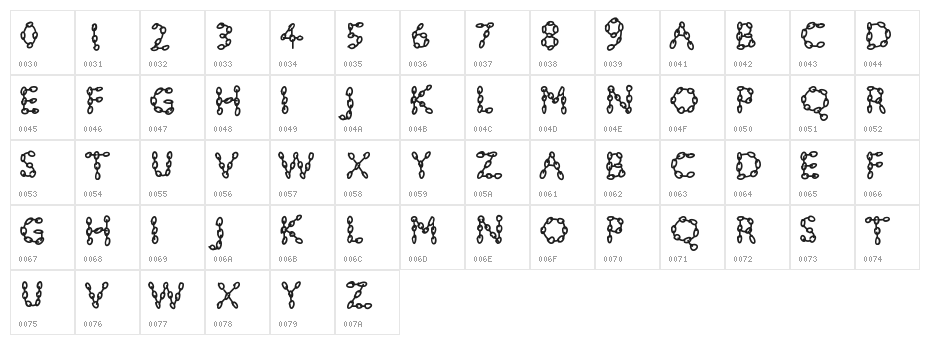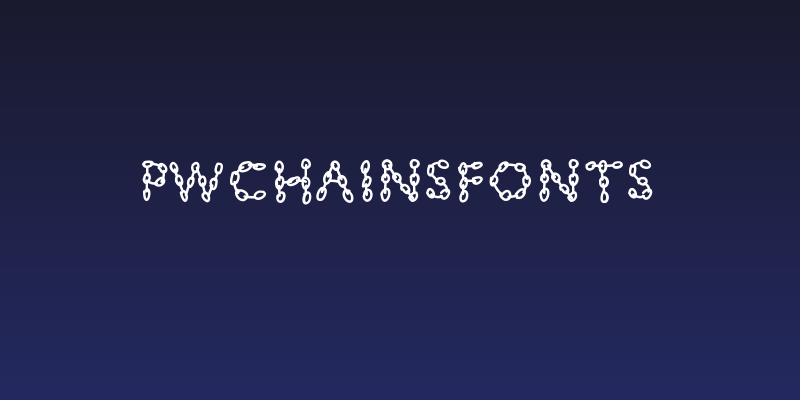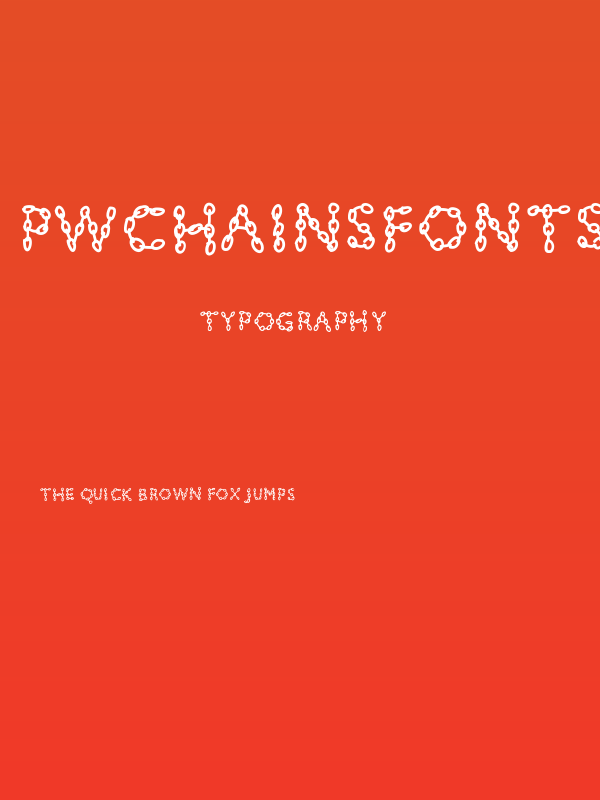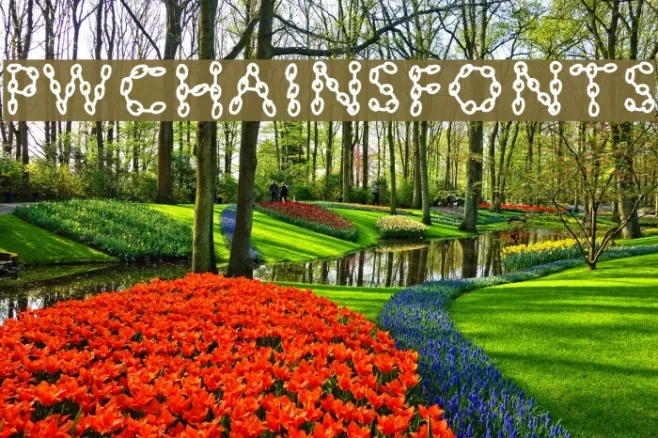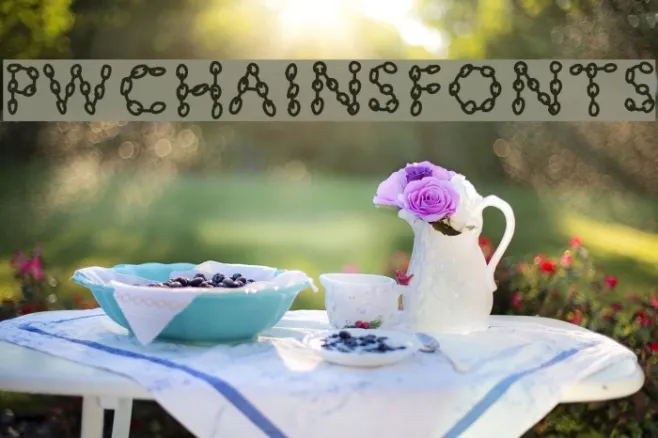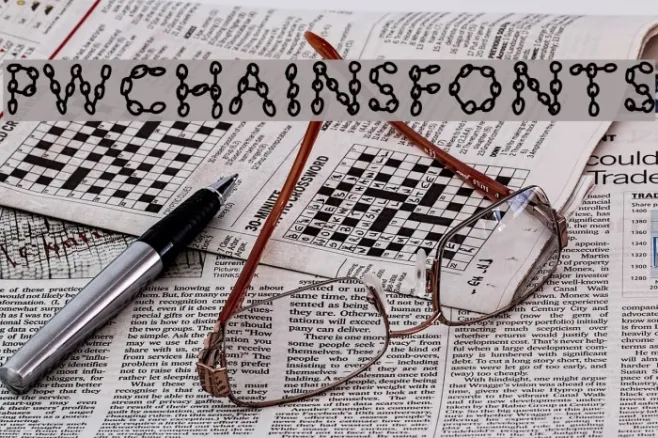
PWChainsfonts Font
PWChainsfonts Description
This font is a unique and creative design that mimics the appearance of linked chains forming each character. The letters and numbers are constructed with a series of interconnected loops, giving it a bold and industrial look. The style is consistent across uppercase, lowercase, and numerical characters, maintaining a cohesive chain-like appearance. The font is highly decorative, making it suitable for projects that require a strong visual impact. Its distinctive style is not suitable for body text but works well in larger formats where its intricate details can be appreciated.
| Proposed Projects | This font is perfect for branding projects, logos, posters, and any design work that requires a bold and industrial aesthetic. It can also be used in themed events or merchandise that aligns with its unique style. |